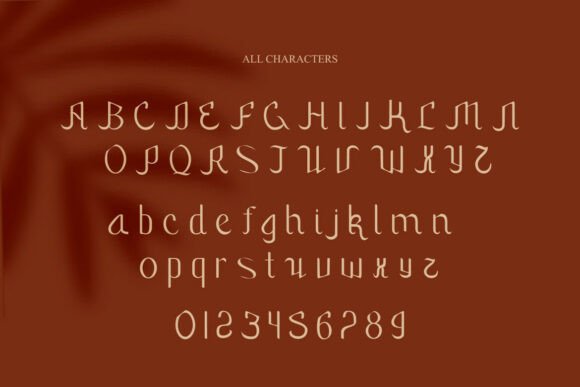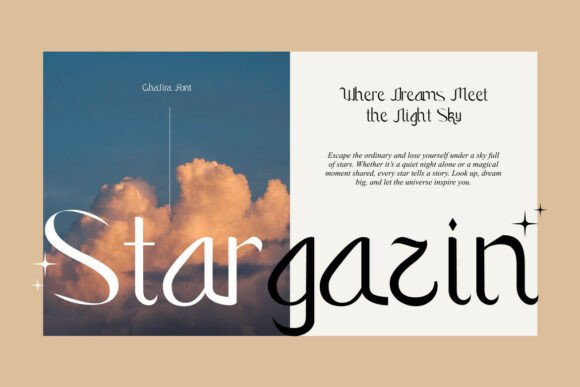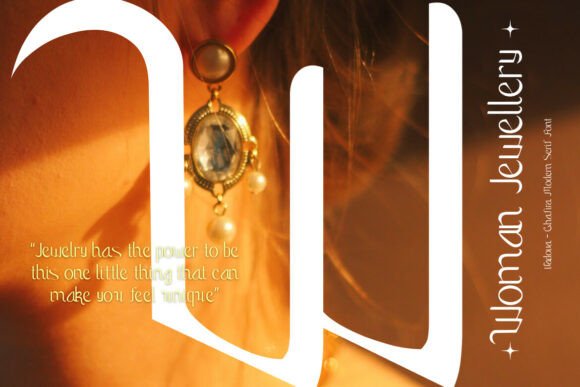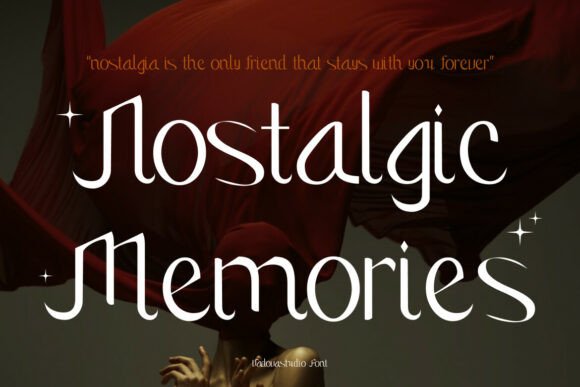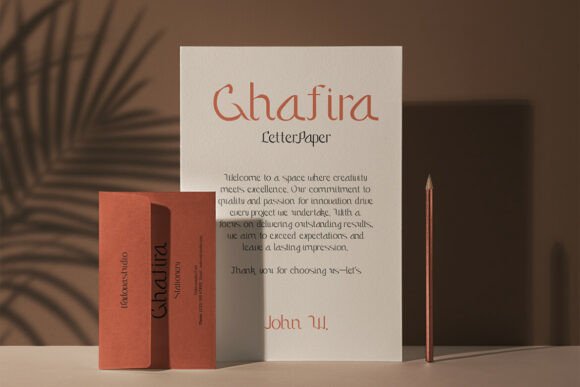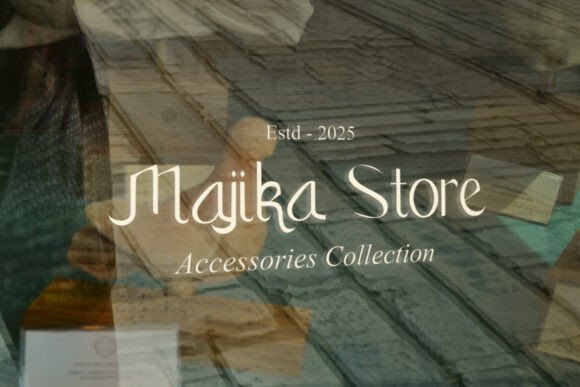
Discover the Elegance of Ghafira Font: A Modern Serif for Sophisticated Designs
In the world of typography, fonts play a crucial role in conveying messages, evoking emotions, and enhancing the aesthetic appeal of designs. Among the myriad of fonts available, Ghafira Font stands out for its unique blend of modern serifs, soft curves, and subtle calligraphic influences. This article explores the characteristics, benefits, and applications of Ghafira Font, making it an essential read for designers, crafters, and typography enthusiasts.
The Distinctive Features of Ghafira Font
Ghafira Font presents a refined modern serif style that is both graceful and expressive. Its design is characterized by:
- Soft Curves and Subtle Calligraphic Influence: Ghafira’s design incorporates soft, flowing curves and a hint of calligraphic flair, giving it a poetic and artistic feel. This makes it ideal for projects that require a touch of elegance and sophistication.
- Delicate Stroke Contrast: The font features delicate stroke contrast, which adds depth and character to the letters. This contrast is not too sharp, ensuring that the text remains readable across various mediums.
- Slightly Flared Terminals: The terminals of Ghafira’s letters are slightly flared, contributing to its refined and classic appearance. This feature also enhances the font’s legibility.
- Unique Letterforms: Ghafira boasts unique letterforms that set it apart from more traditional serif fonts. These distinctive shapes bring a fresh and contemporary feel to designs.
Designed for Versatility and High-Resolution Use
Ghafira Font is designed to perform exceptionally well in high-resolution environments, making it perfect for a wide range of applications, from large-scale print projects to detailed digital designs. Its scalable nature ensures that it maintains its elegance and clarity regardless of size, from billboards to business cards.
Ease of Integration Across Projects
- Print Projects: Such as brochures, magazines, and posters, Ghafira adds a touch of sophistication and elegance.
- Digital Projects: Including websites, mobile apps, and digital marketing materials, Ghafira’s clarity and readability shine through.
Applications of Ghafira Font
Ghafira Font’s versatility and aesthetic appeal make it suitable for a variety of design projects, including:
- Branding and Identity: Use Ghafira to create a lasting impression with your brand’s visual identity.
- Editorial Design: Enhance your magazines, newspapers, and blogs with Ghafira’s elegant and readable serif style.
- Packaging: Add a touch of luxury and sophistication to your product packaging.
- Advertising: Ghafira’s unique and artistic feel makes it perfect for ad campaigns that require a distinctive voice.
Ghafira Font is a remarkable addition to the world of typography, offering a unique blend of modern serifs, soft curves, and subtle calligraphic influences. Its delicate stroke contrast, slightly flared terminals, and unique letterforms contribute to its graceful and expressive typographic voice. Designed for high-resolution use and easy integration across print and digital projects, Ghafira is an excellent choice for designers and crafters seeking to add elegance and sophistication to their work. Explore the possibilities with Ghafira Font and elevate your designs to new heights of aesthetic appeal and communicative effectiveness.